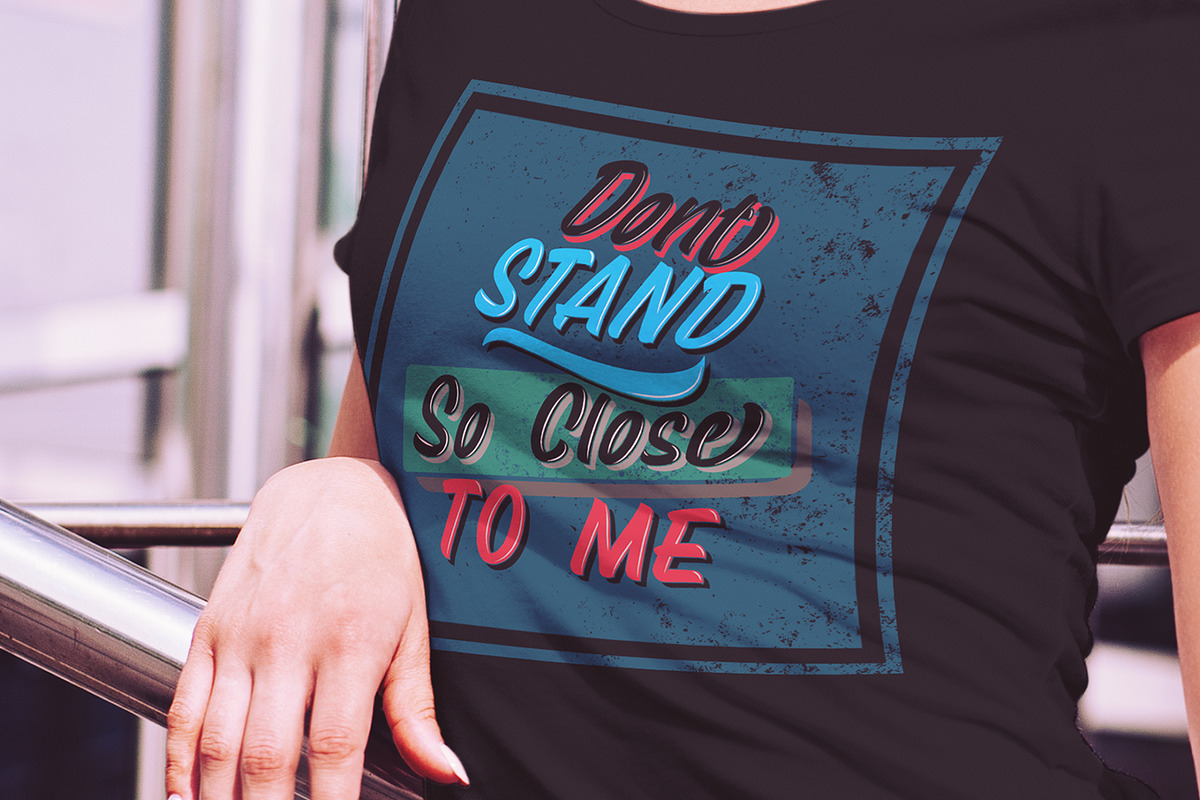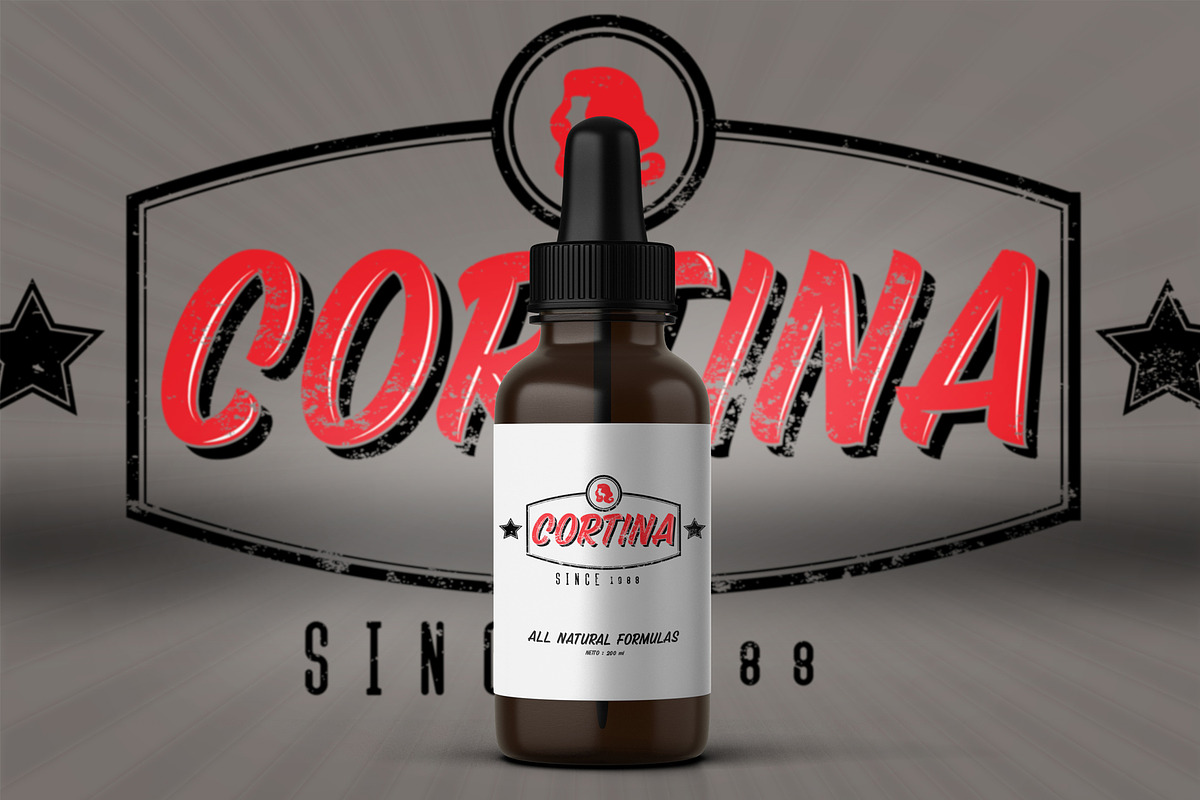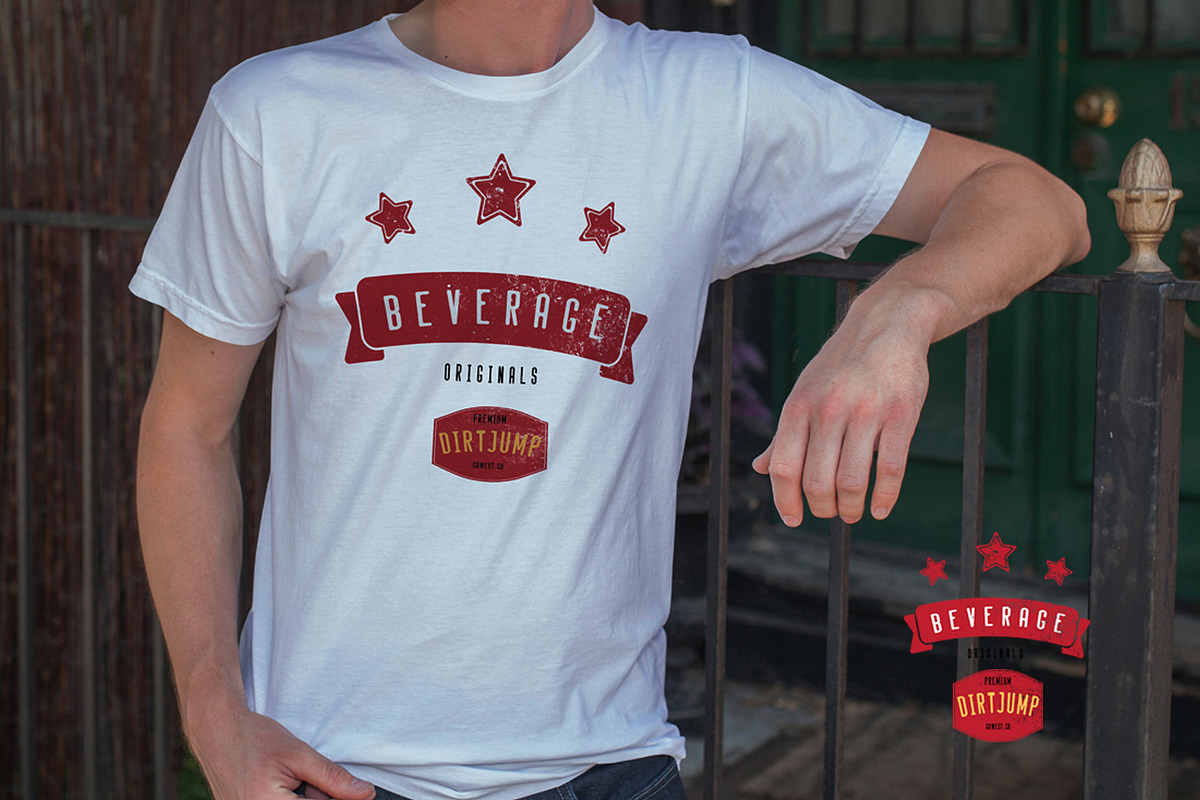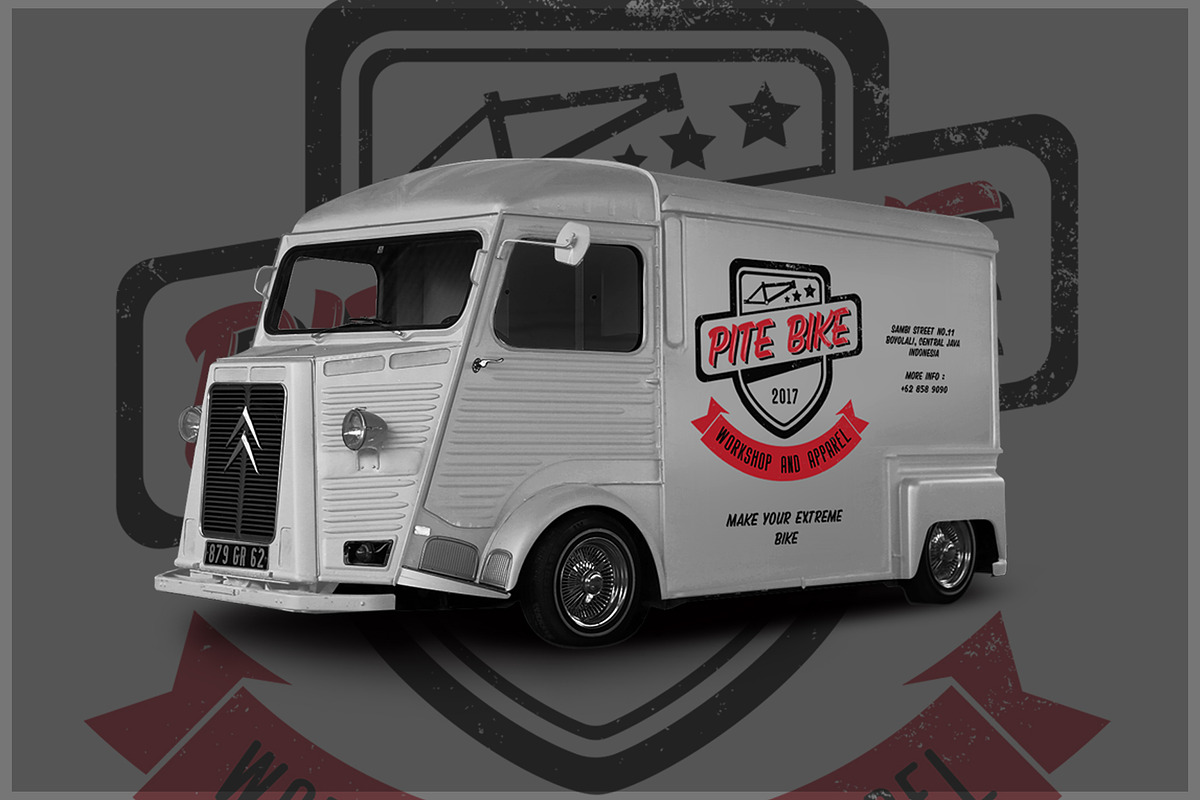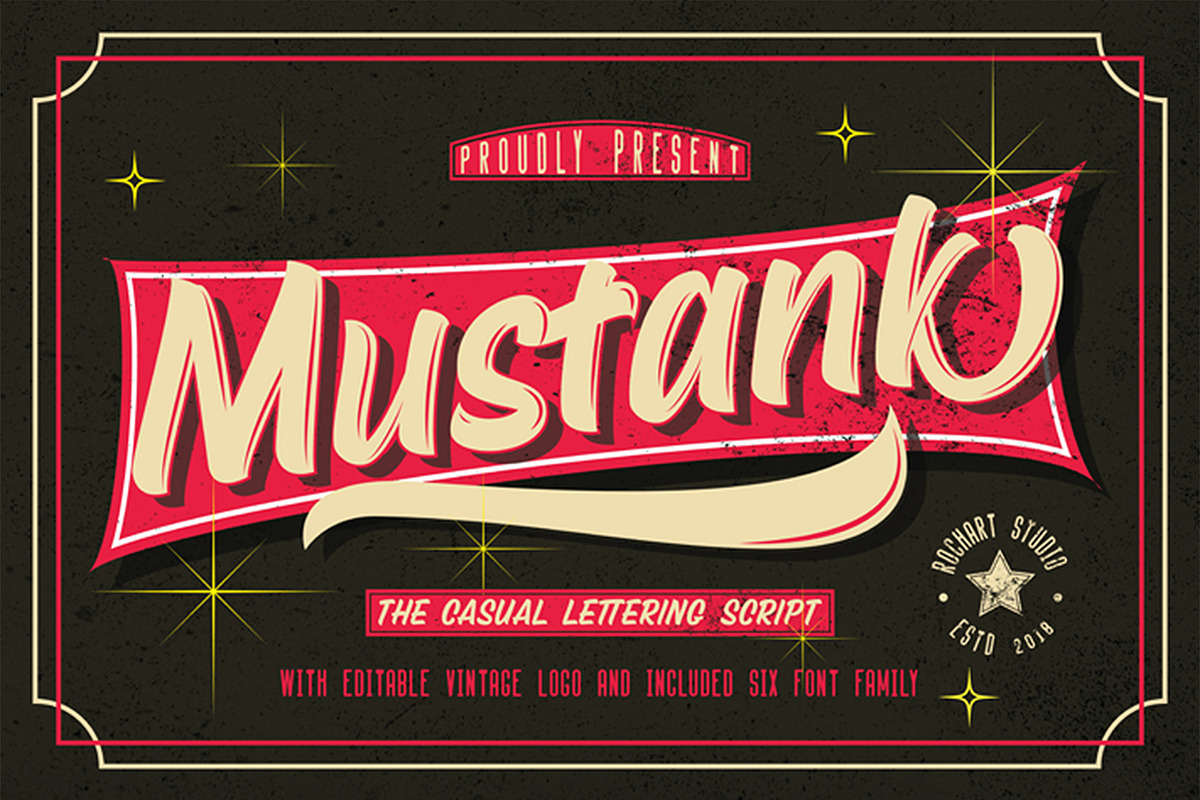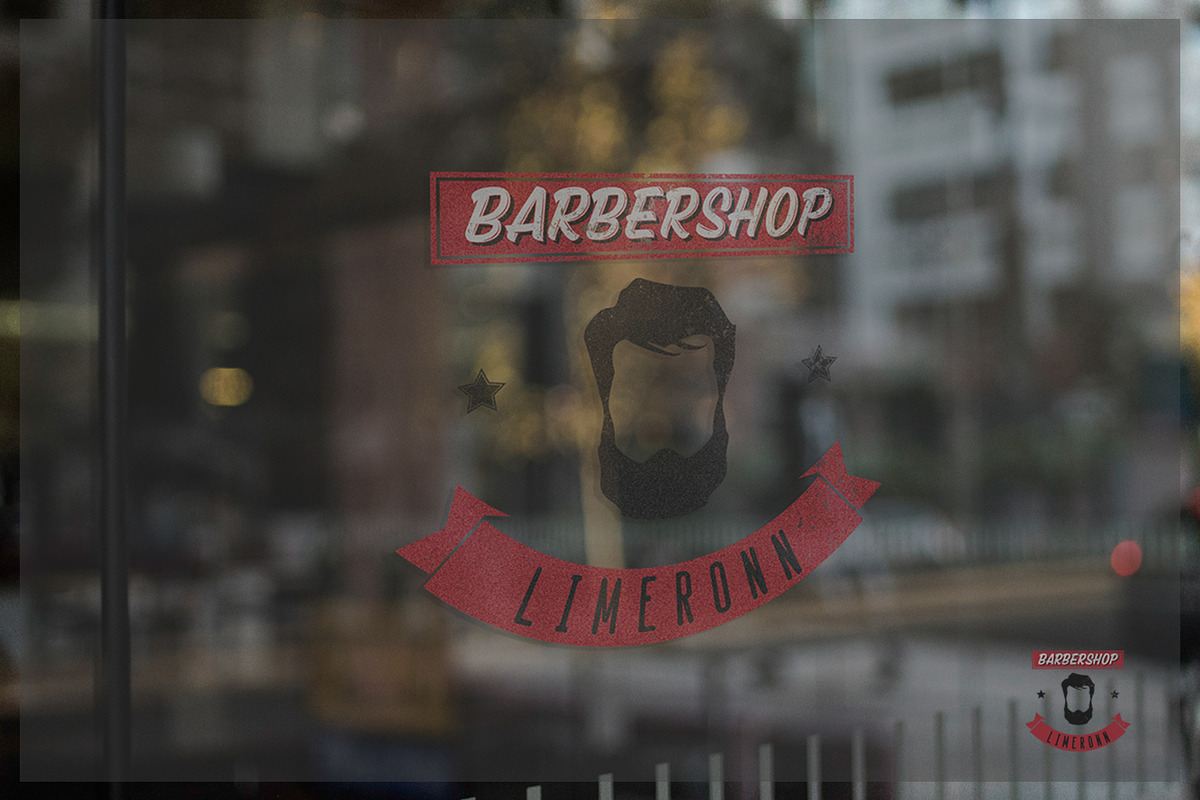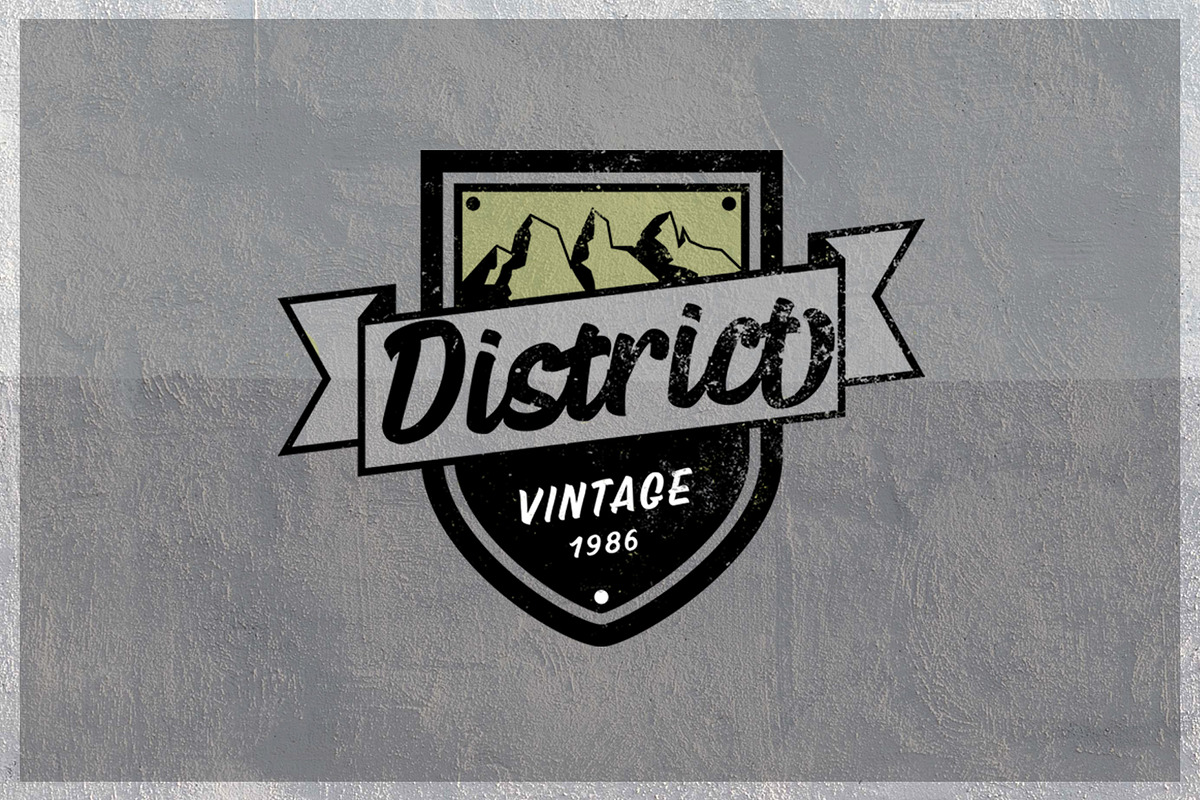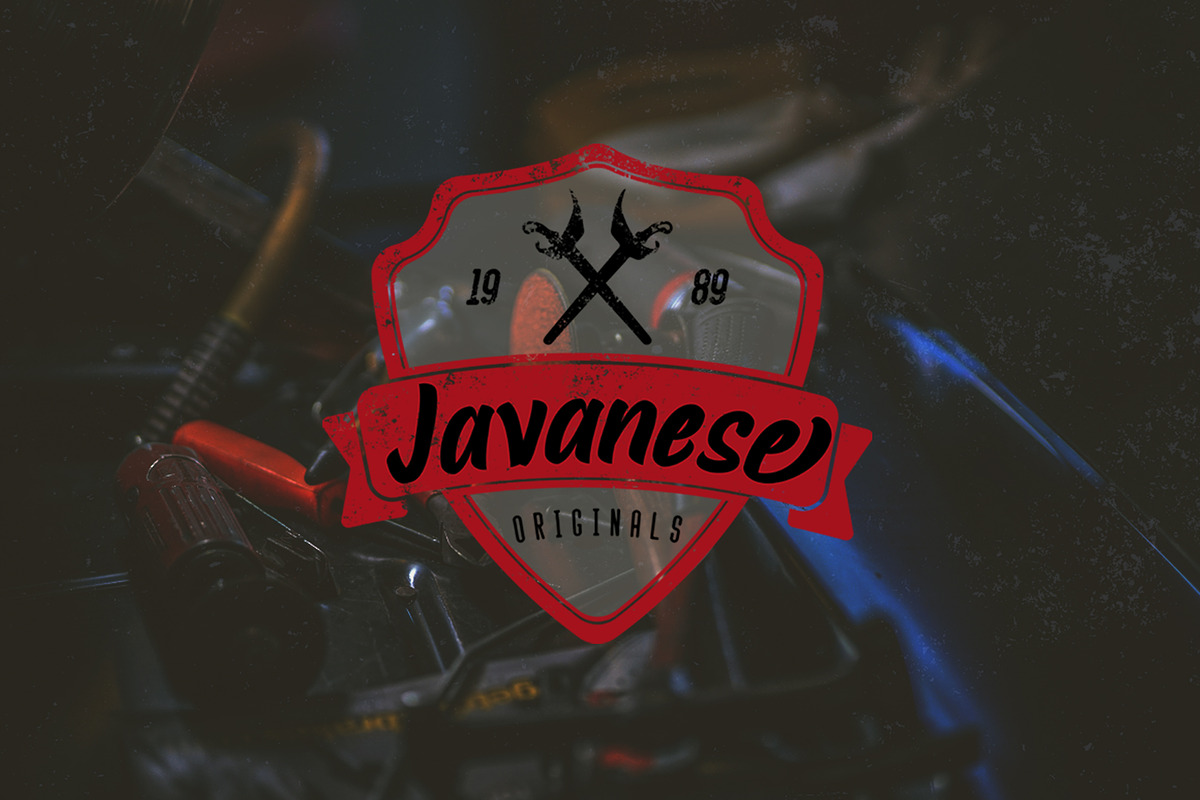
Mustank Casual Script + EXTRA
Mustank Casual lettering script is a font collection that contains three font family there are script, display and sans. The collection of fonts that are designed to complement each other in their use. Mustank is perfect for logo design, t-shirts, flyers, apparel, packaging, advertising etc. This typeface contain of Uppercase, Lowercase, Alternate, Swash, Number, Symbol, Punctuation, Ligature etc. Also support multilingual and already PUA encoded.